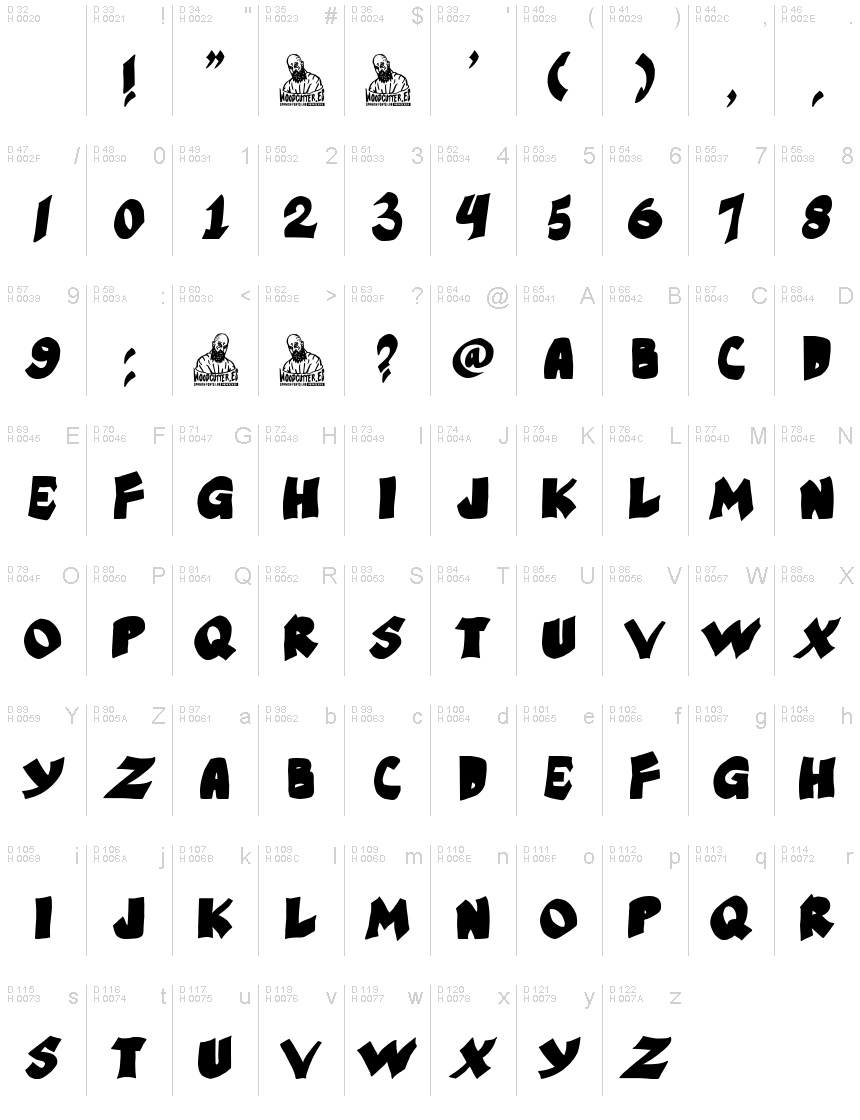
Black Extreme Calipso Club
Black Extreme Calipso Club by Woodcutter is a statement-making display font that commands attention.
Its bold strokes and impactful presence exude confidence, making it ideal for branding that needs to stand out, such as concert posters, fashion labels, and edgy advertising campaigns. The font's striking appearance is characterized by its robust lines and pronounced letterforms, embodying a modern flair with a hint of rebellion.
This typeface offers designers the perfect tool for creating memorable visuals that require an assertive typographic touch.
Black Extreme Calipso Club.